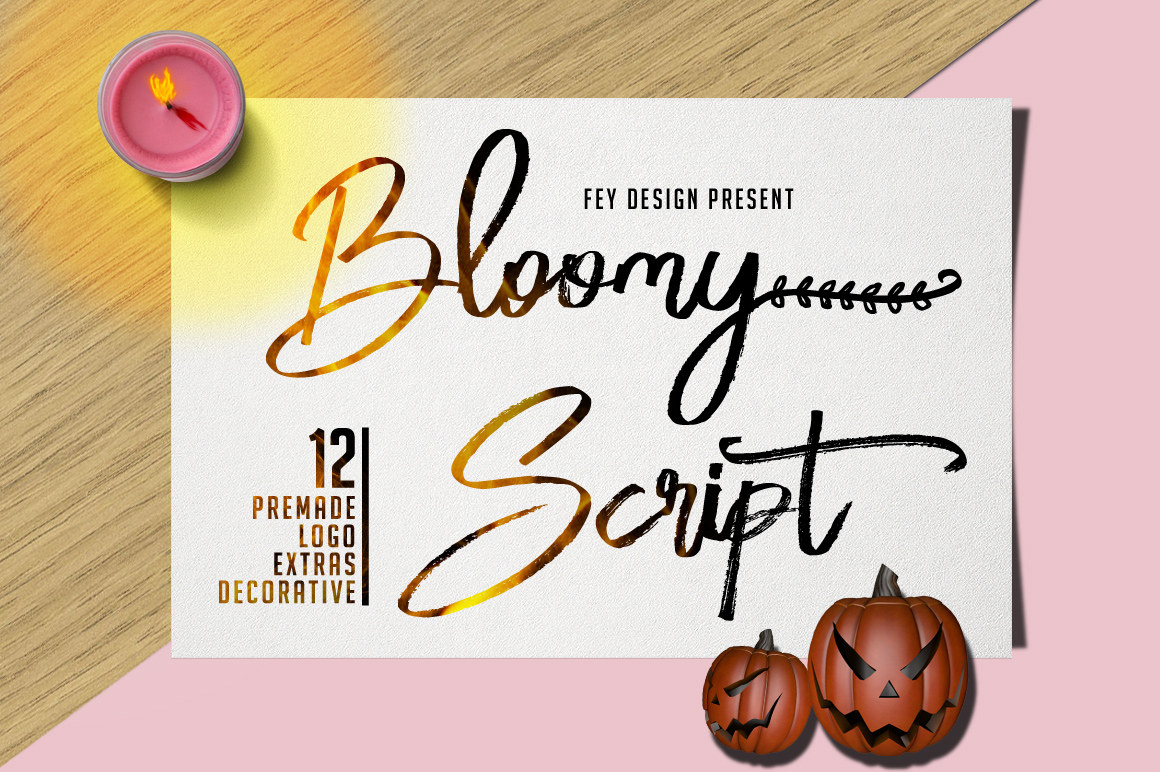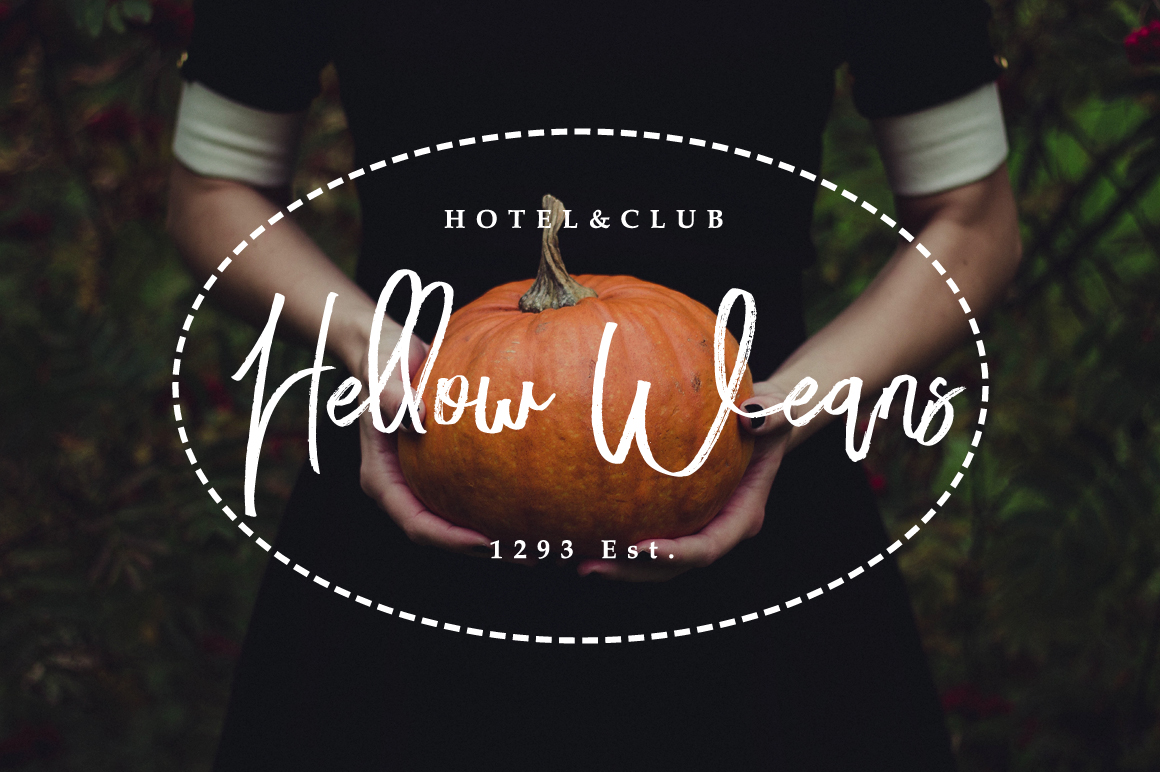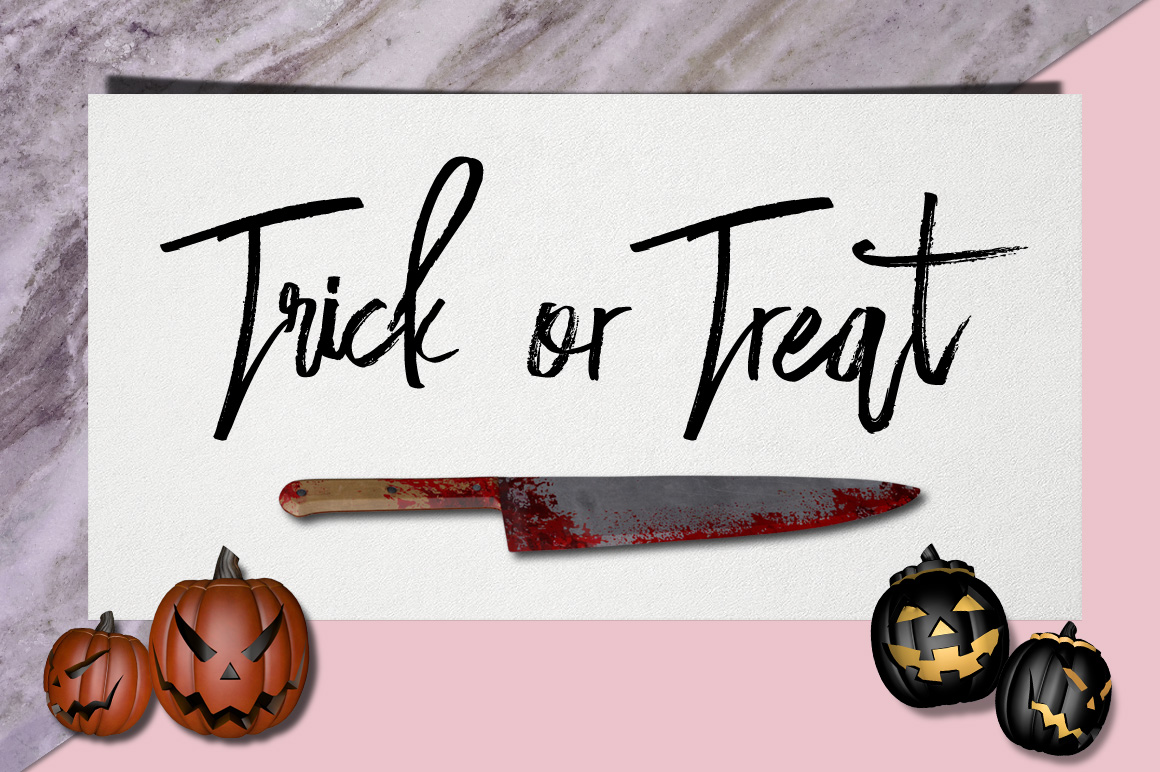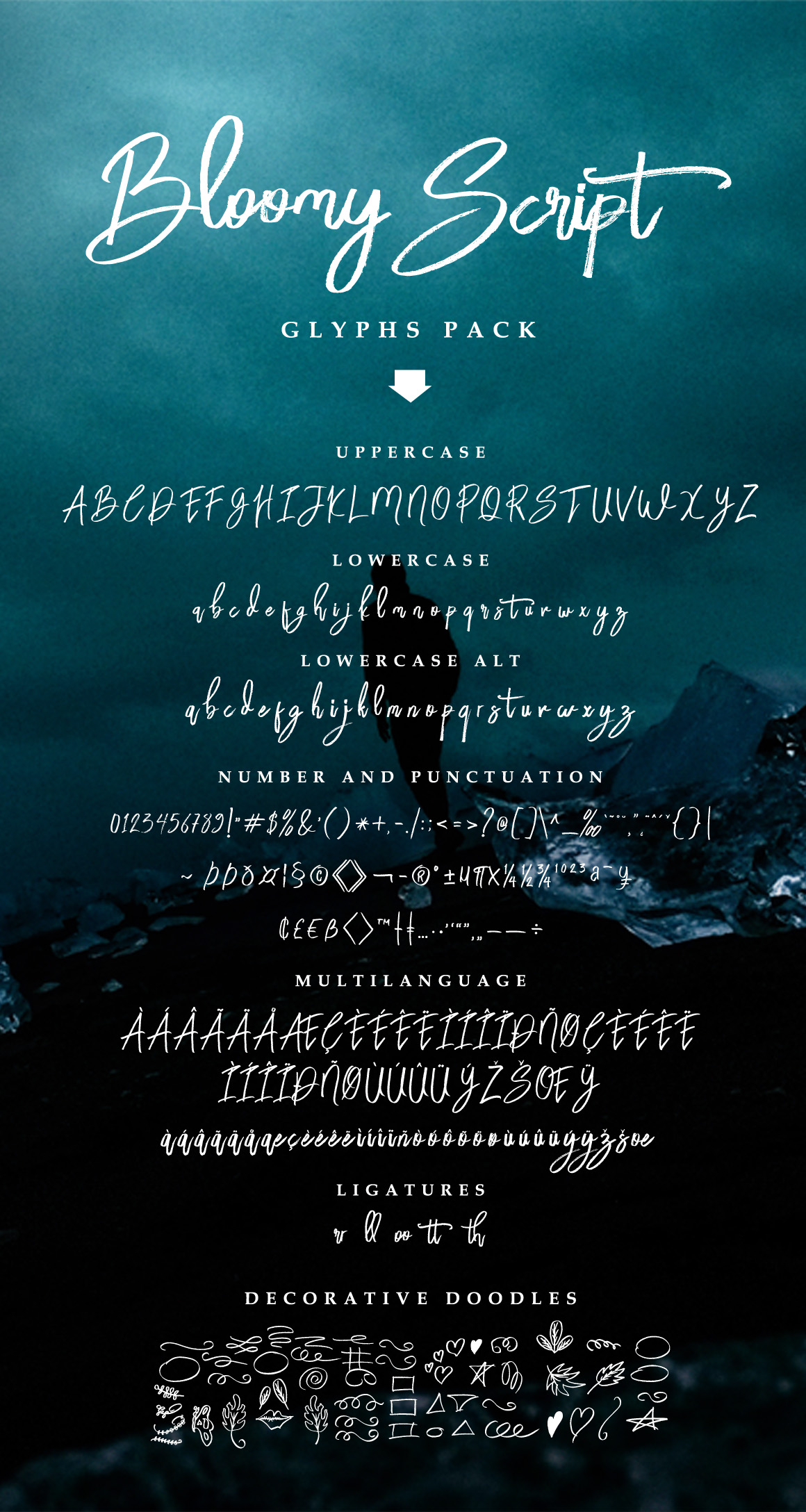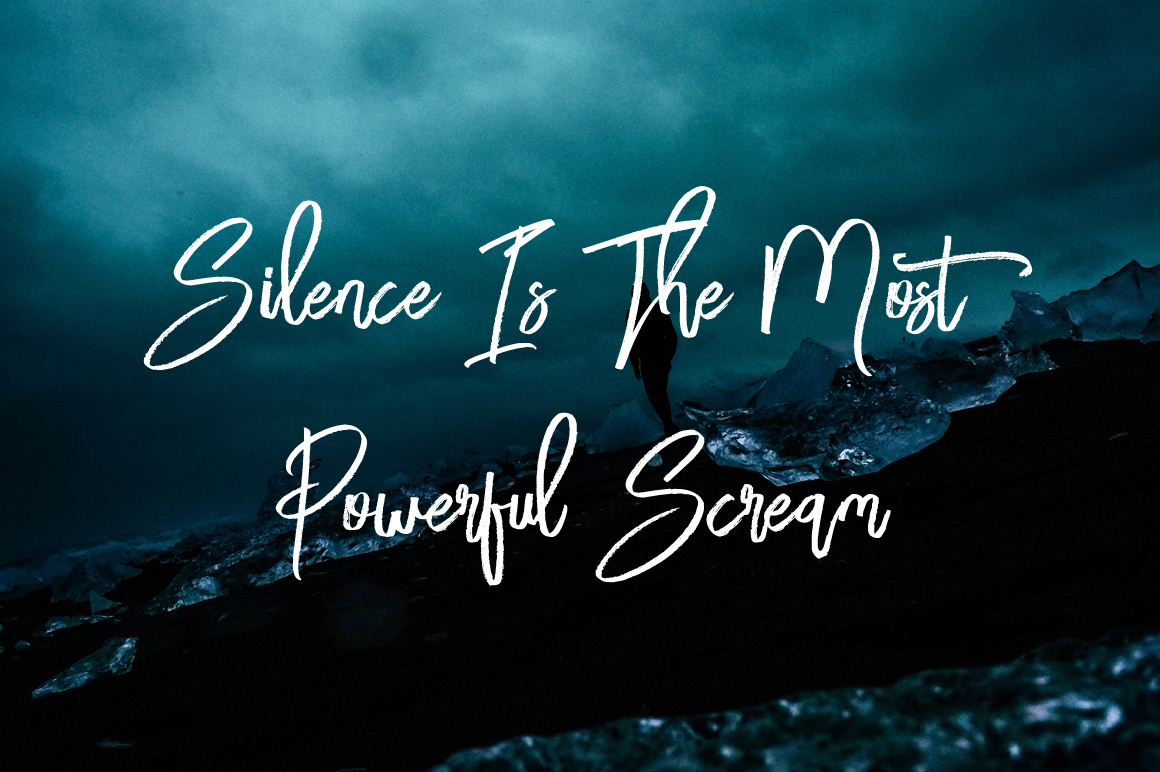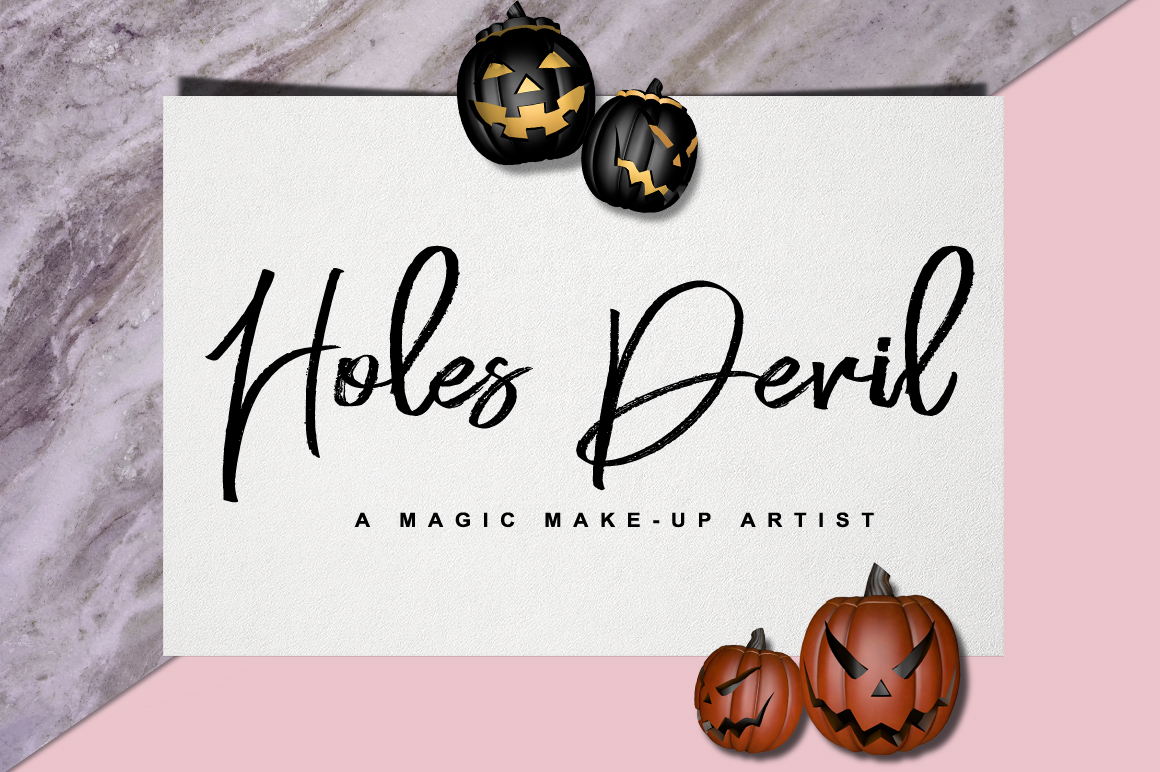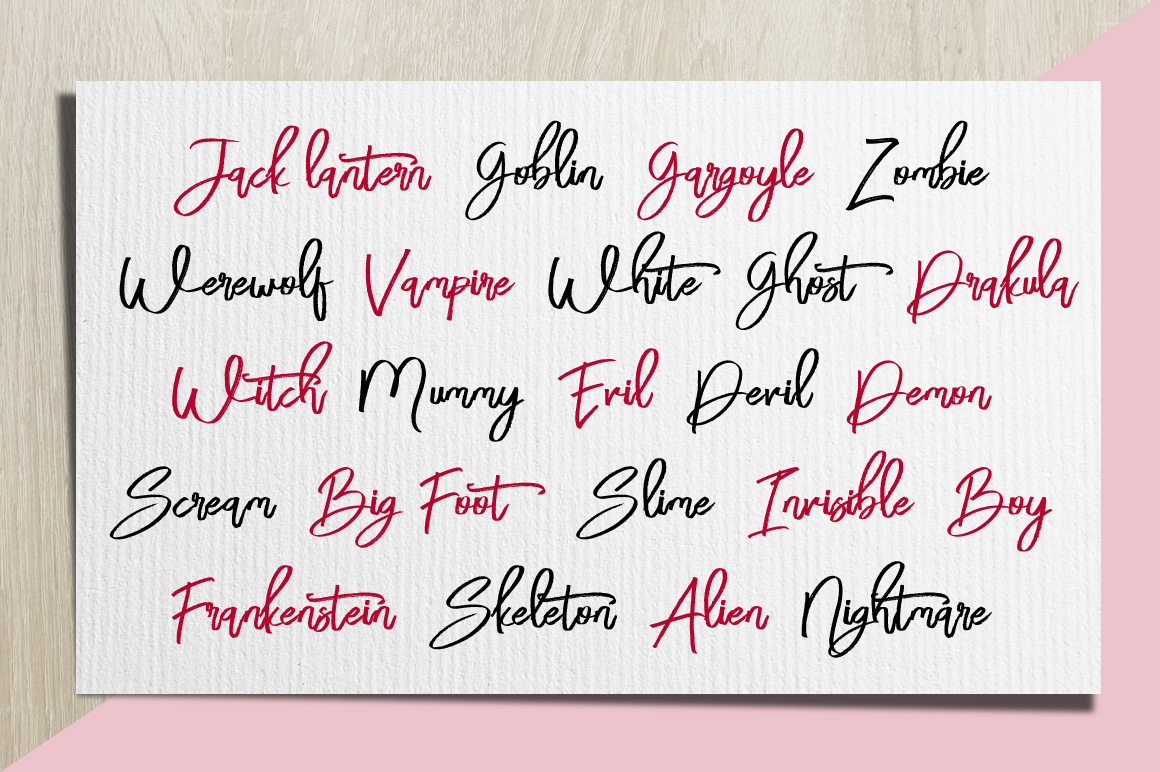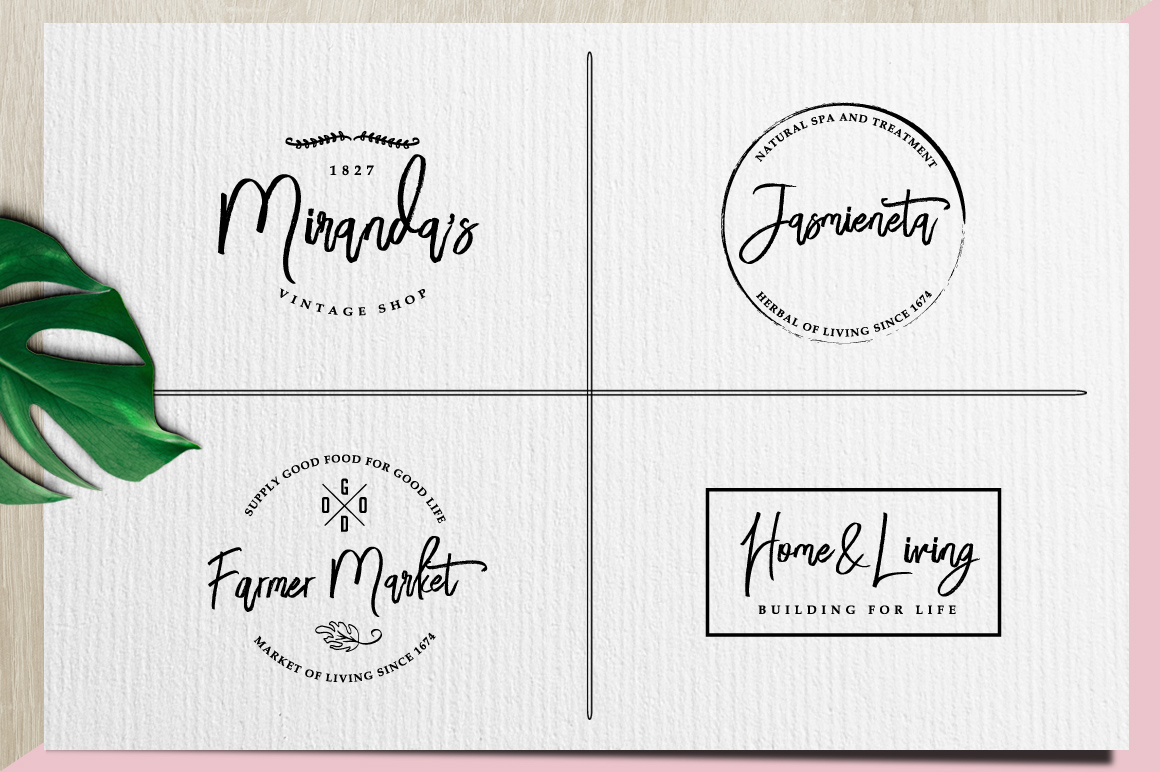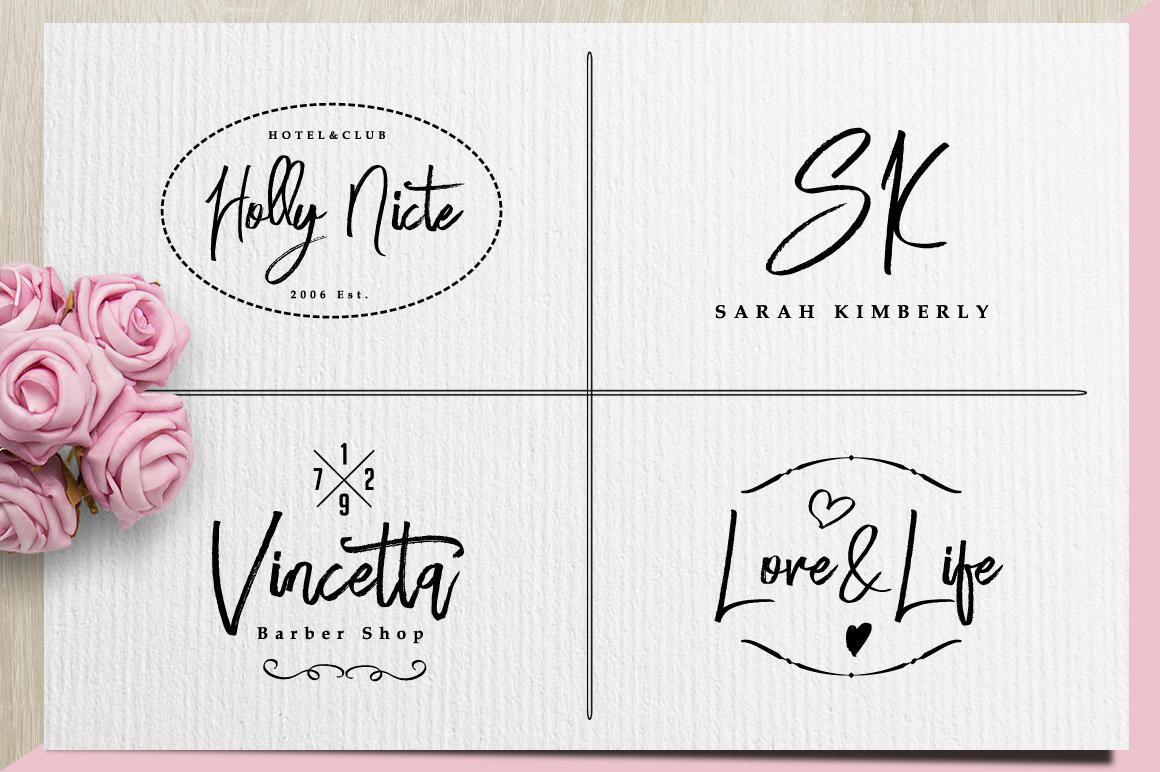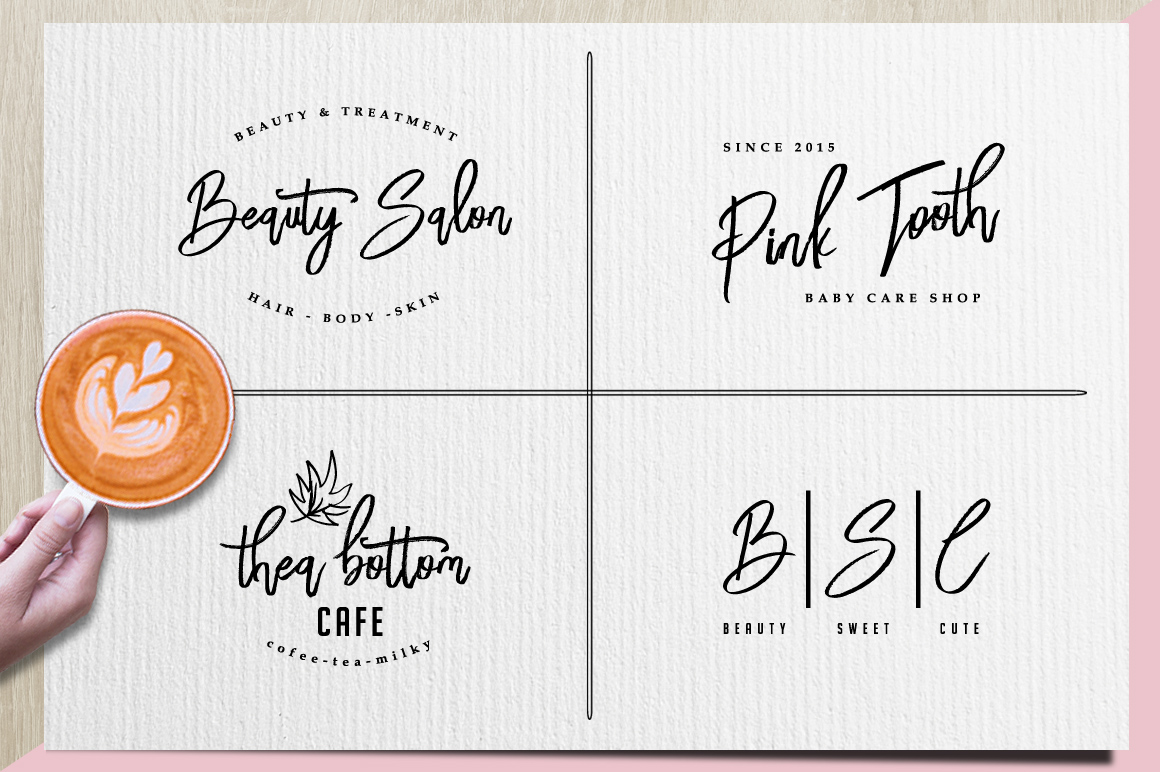
Bloomy Script Font
About Bloomy Script Font
Bloomy is a beautiful and informal script font, ideal for headlines and displays. This stunningly casual handwritten font is a great way to give all your projects a feminine and breathtaking appeal.